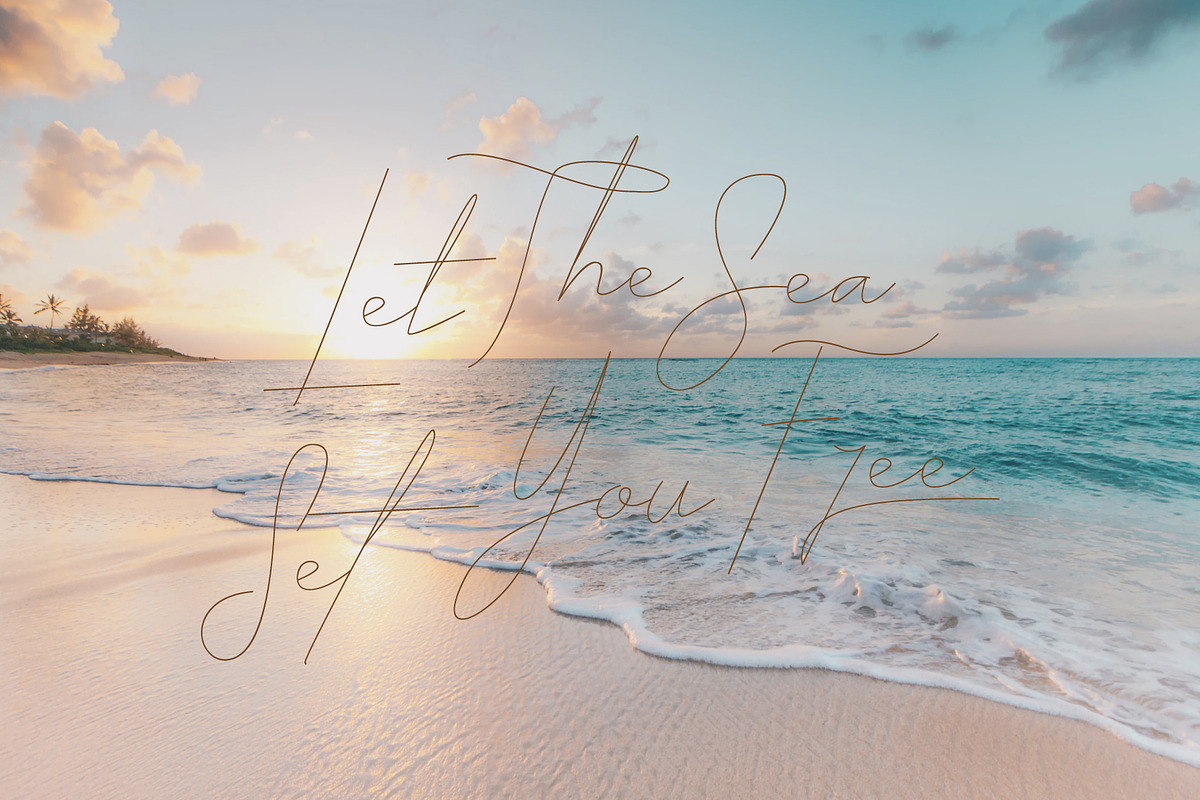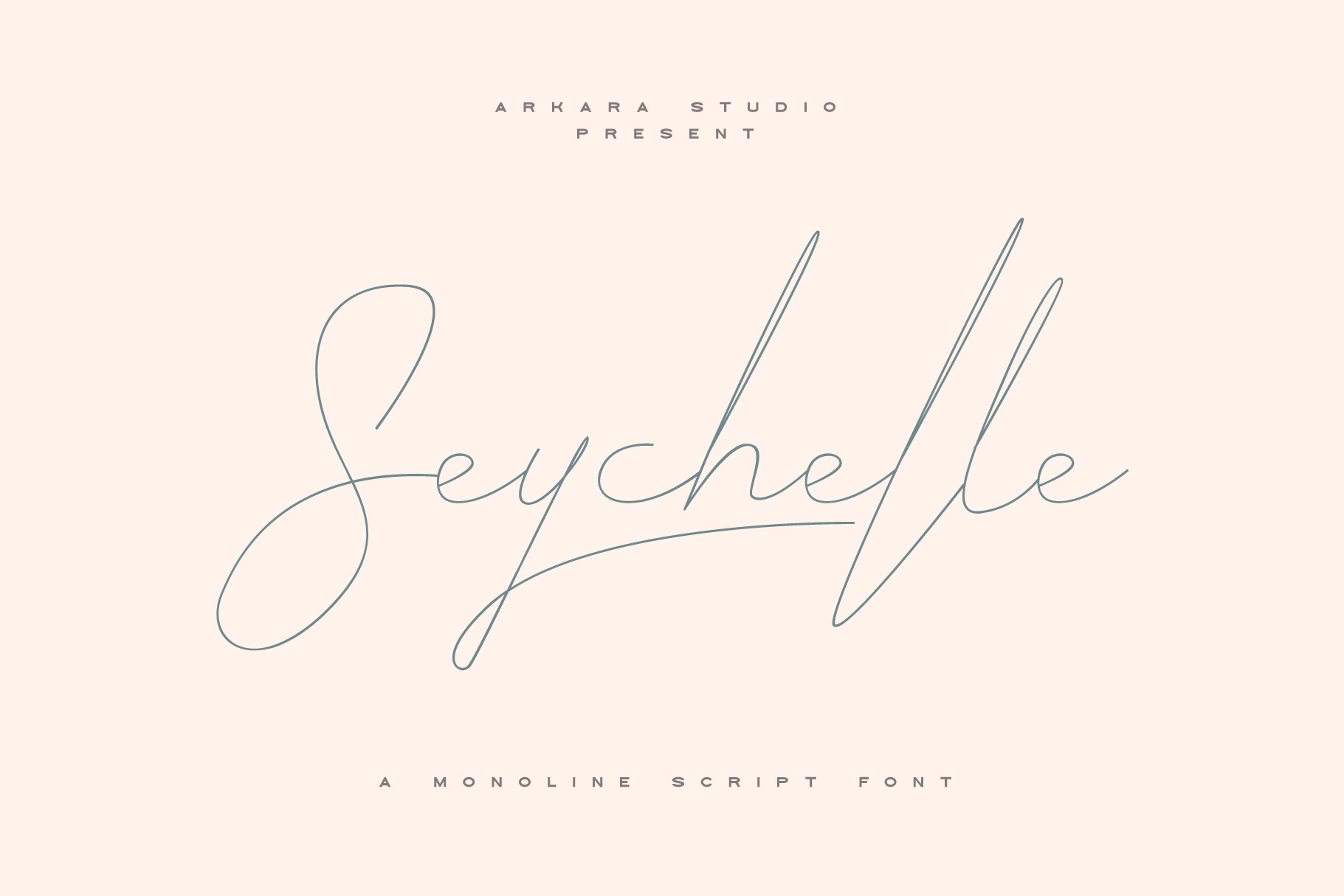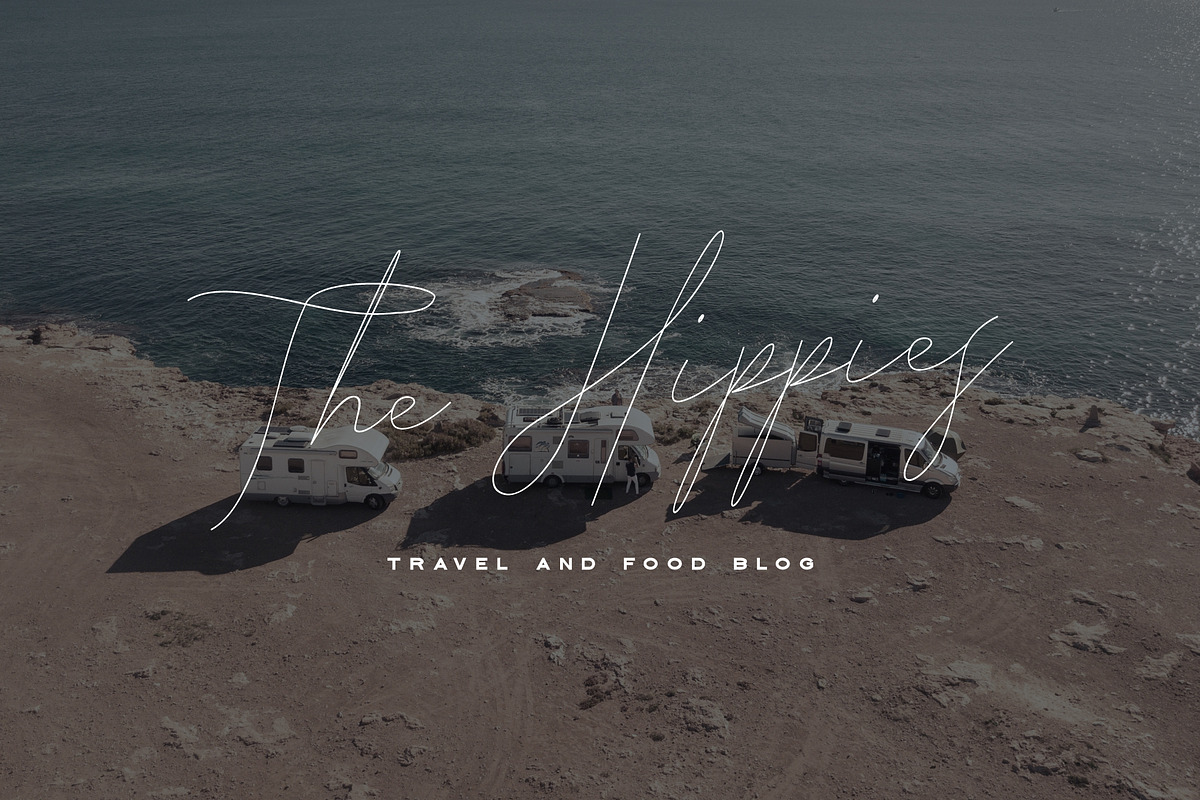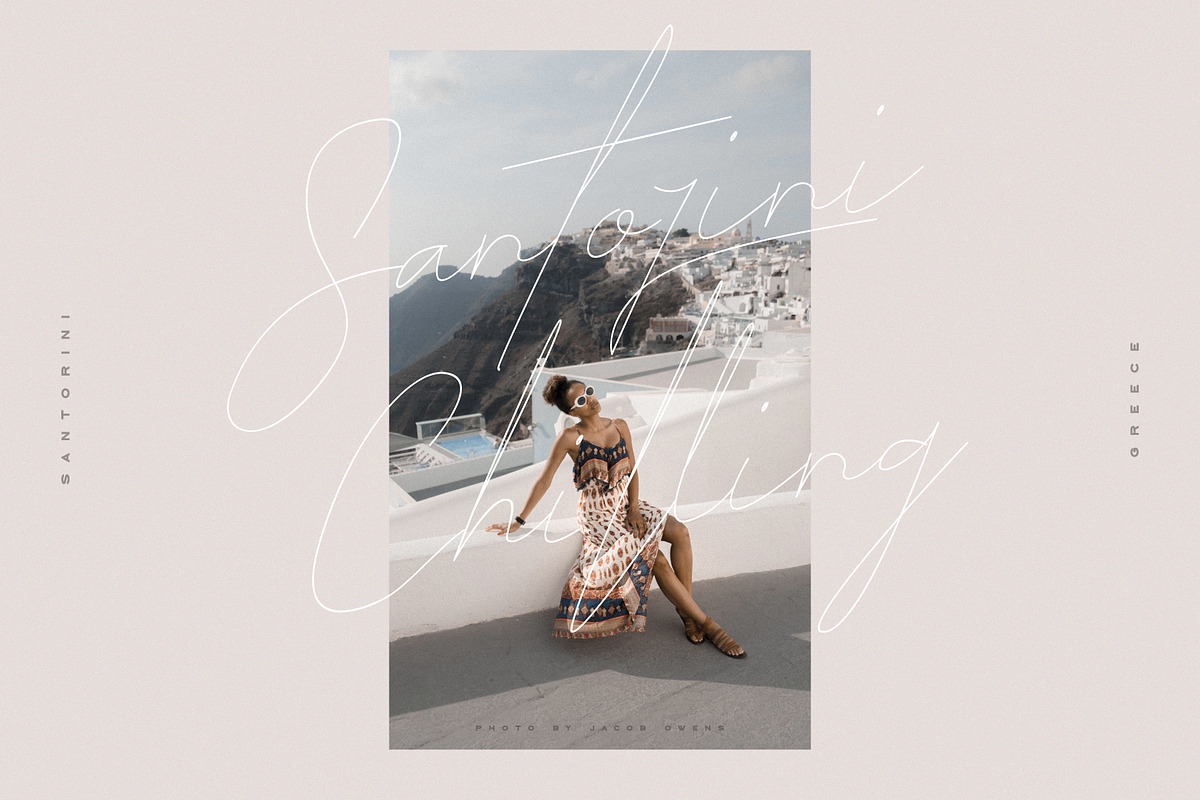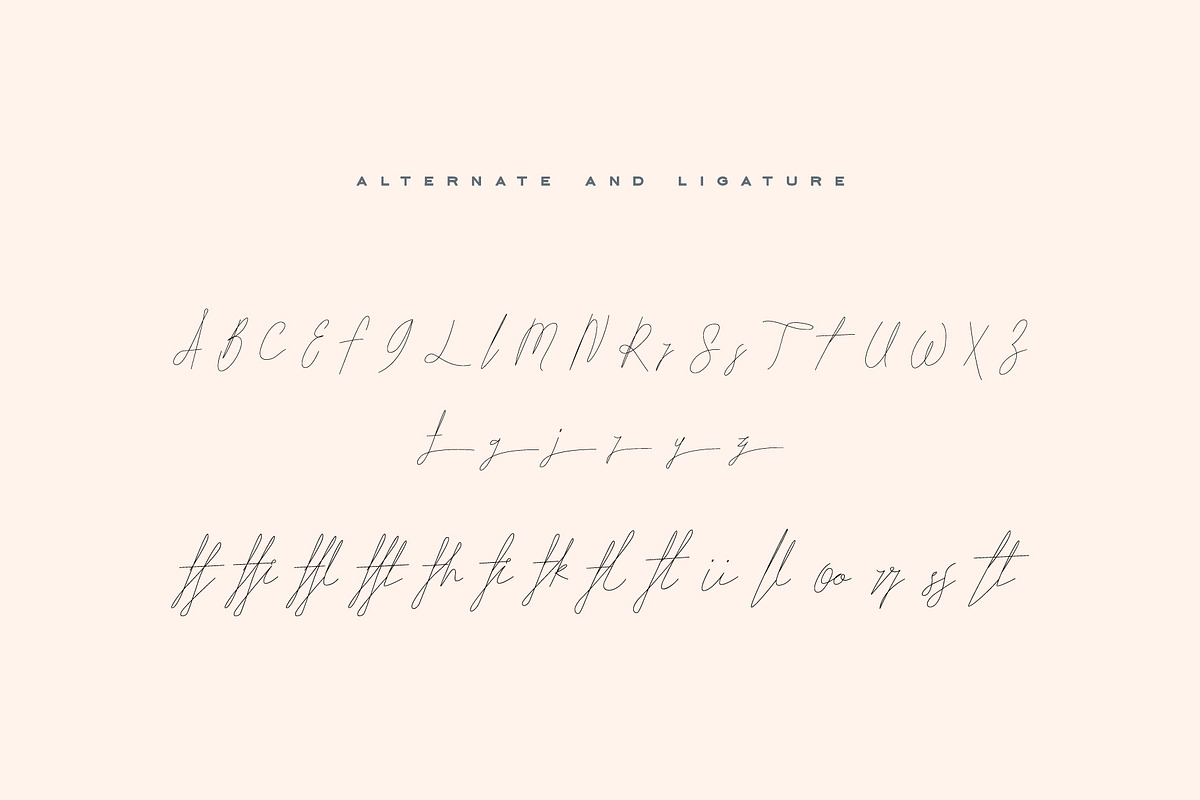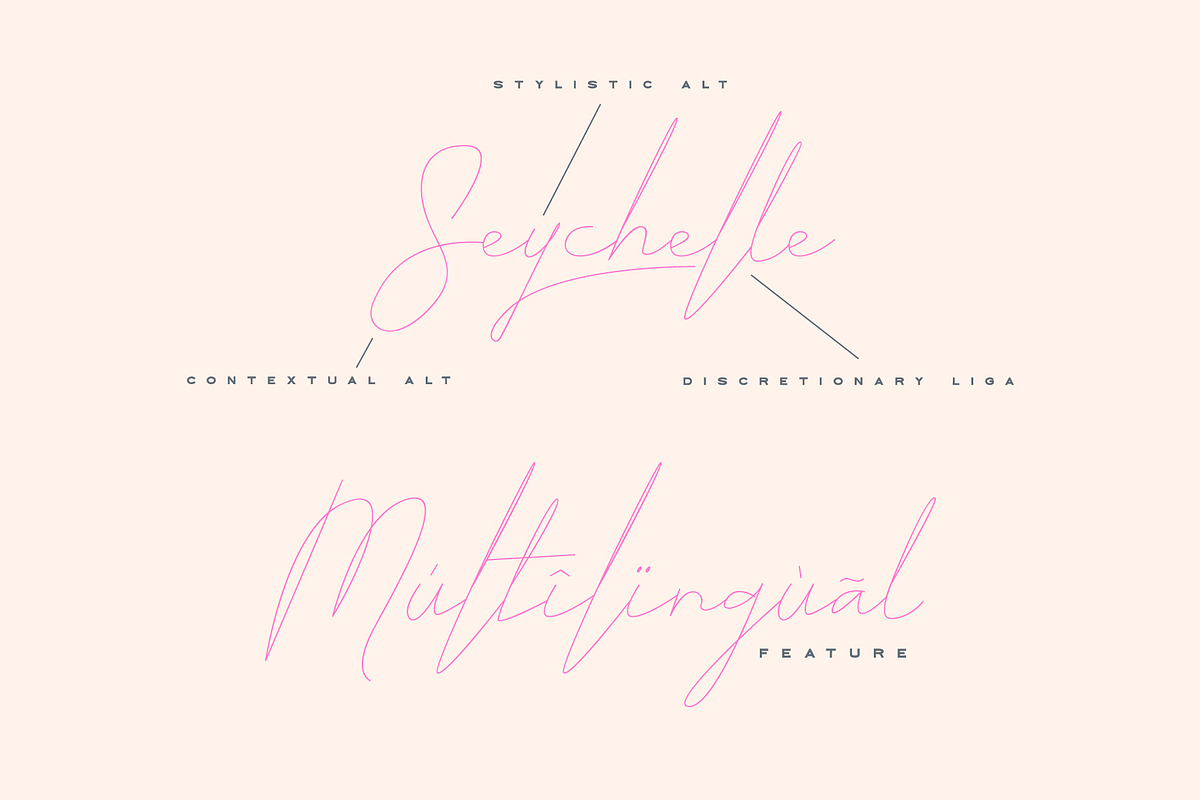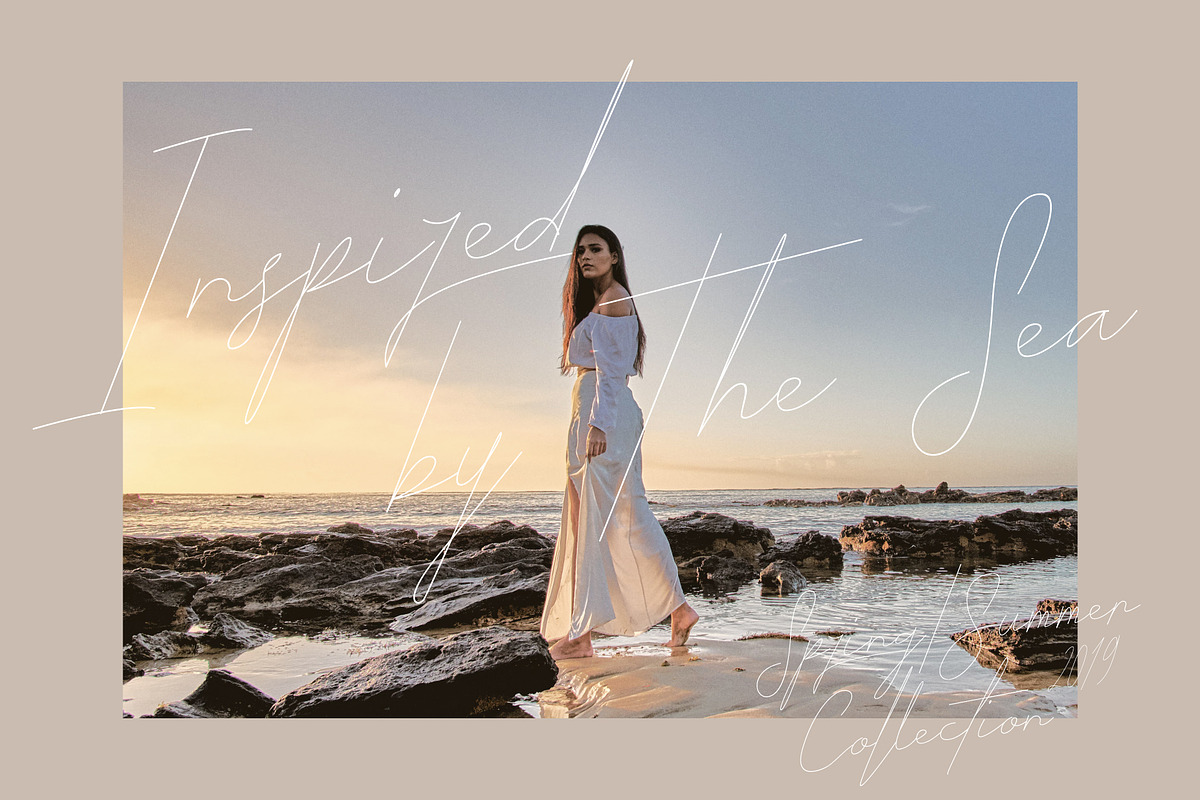
ARK Seychelle - Exotic Monoline Font
Looking for handwriting pen font? Seychelle here for you. Inspired by The Exotic Island on East Africa, called Seychelles, The Exotic and feeling "chill out" we adopt from there, and we got Seychelle for you. A monoline font feels like we writing using a pen, feel that exotic chill. You can using this font for various purpose.
Opentype Features :
- Discretionary Ligatures
- Contextual Alternate
- Stylistic Alternate